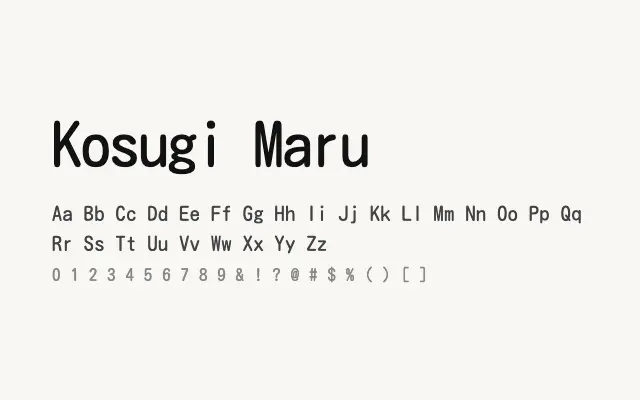
Kosugi Maru
A softened, rounded Japanese gothic sans that brings warmth to multilingual digital typography.
Kosugi Maru takes the structural foundation of Kosugi and applies rounded terminals throughout, resulting in a noticeably friendlier tone. This makes it particularly well suited to consumer-facing apps, children's content, and informal digital products requiring Japanese and Latin support. The rounded treatment is consistent and deliberate rather than superficial.
The rounded companion to Kosugi, sharing the same Japanese gothic structure but with softened terminals that add warmth and approachability. Stroke endings are gently curved rather than squared off.